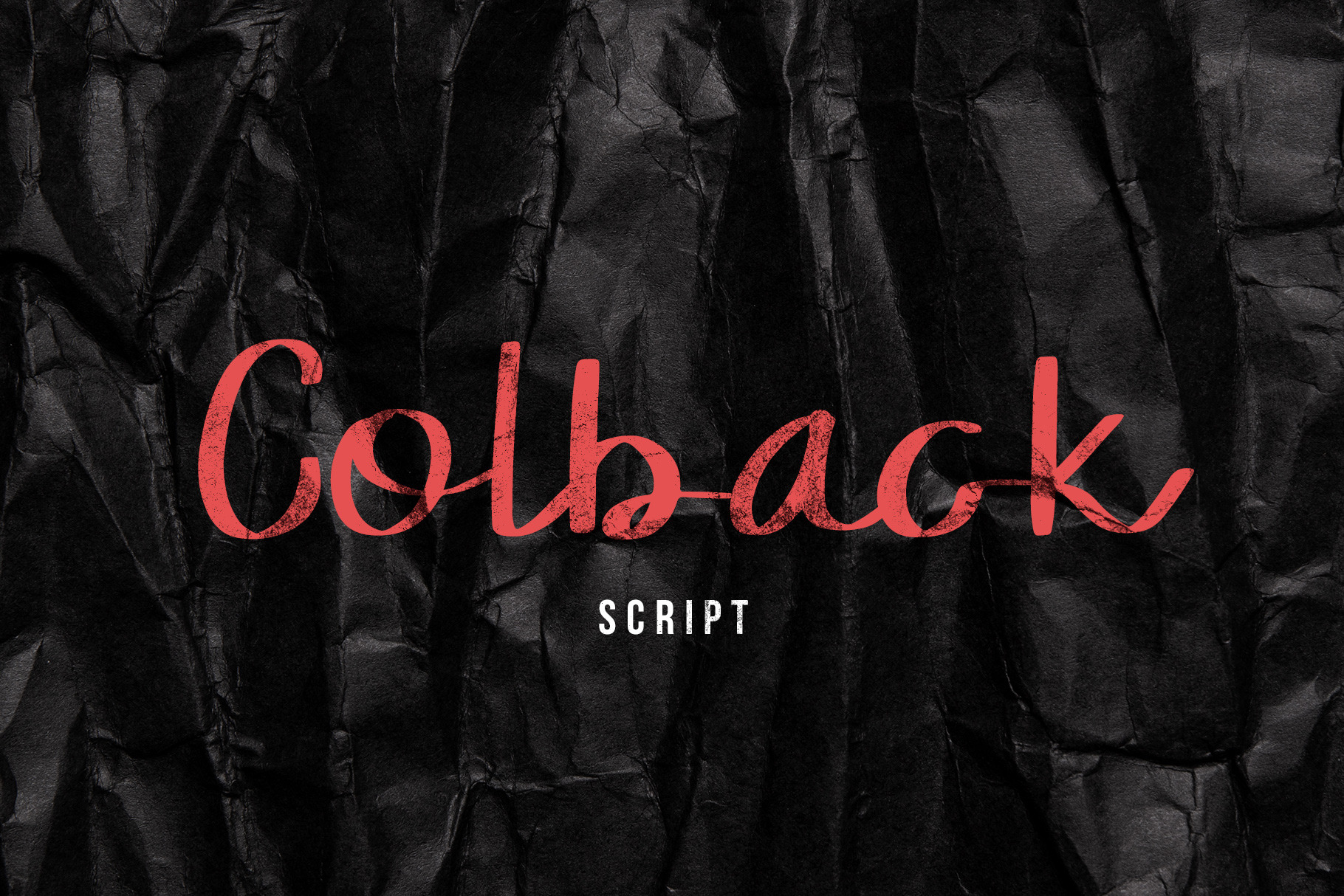
Colback Script Font
I proudly introduce to you Colback Script Font with handwriting look font. Can make it easier to convey the message in your design. Use for awesome display, Logo, labeling, clothing, wedding invitation, quotes, blog title, social media, album covers, logos, and much more.